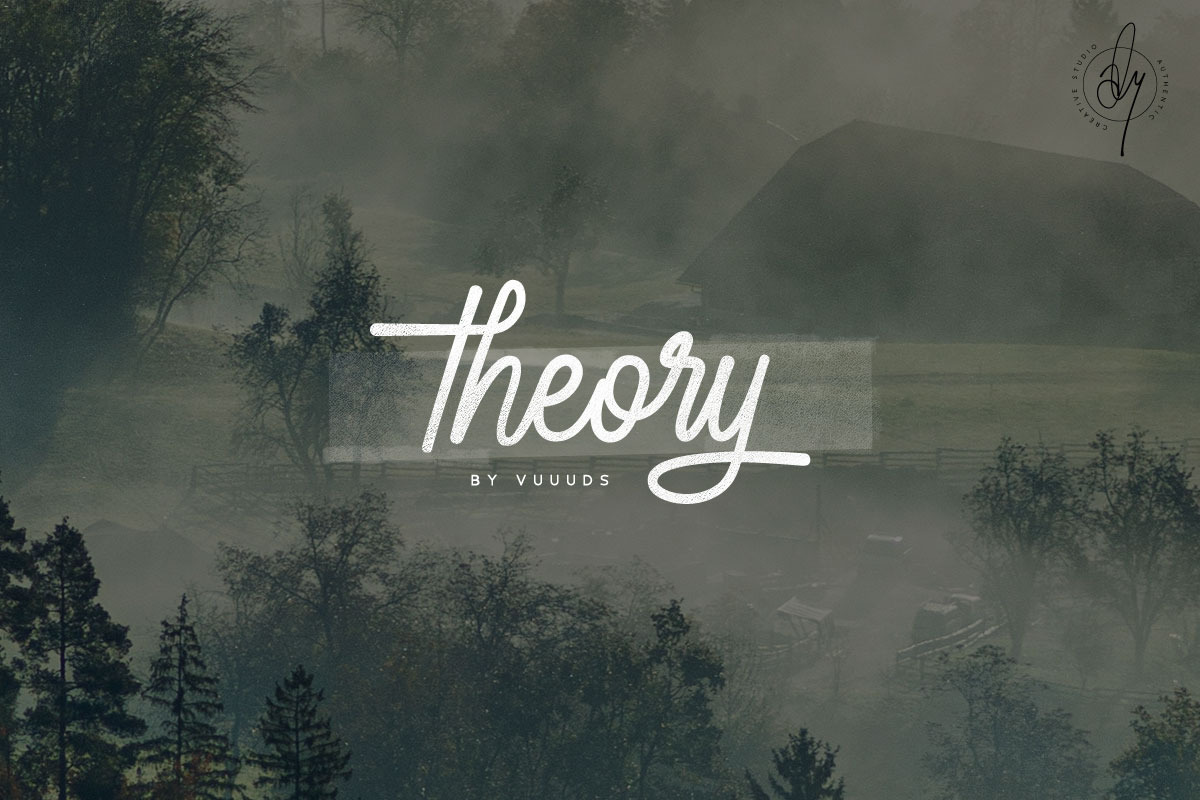
Theory Font
Theory font is monoline style font, every single letters have been carefully crafted to make your text looks beautiful. With modern script style this font will perfect for many different project ex: photography, watermark, quotes, blog header, poster, wedding, branding, logo, fashion, apparel, letter, invitation, stationery, etc.
Foreign languages support: ÀÁÂÃÄÅÆÇÈÉÊËÌÍÎÏÐÑÒÓÔÕÖØÙÚÛÜÝßàáâãäåæçèéêëìíîïðñòóôõöøùúûüýÿ